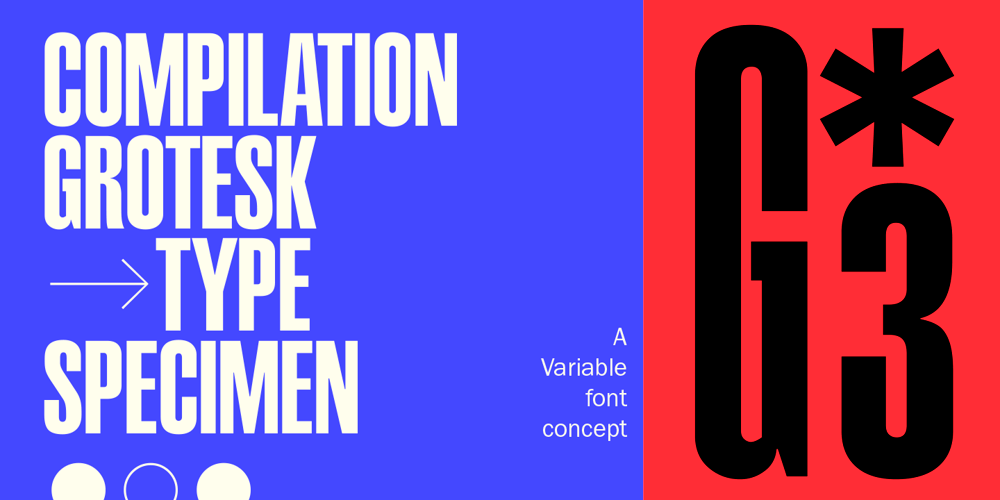
Compilation Grotesk Font Family was designed by Felipe Calderón and published by Estudio Calderon. Compilation Grotesk contains 10 styles and family package options. Compilation Grotesk is a variable font concept that includes 9 sort of adjustable heights inspired principally on Matterhorn Headliners 2. The “height” axis allowes the glyphs expand along the Y-axis upward from the baseline as the values increases from 700 to 1100. Due to it, the system adapts keeping the contrast and the original proportions. Don’t stretch it out, just adjust it!